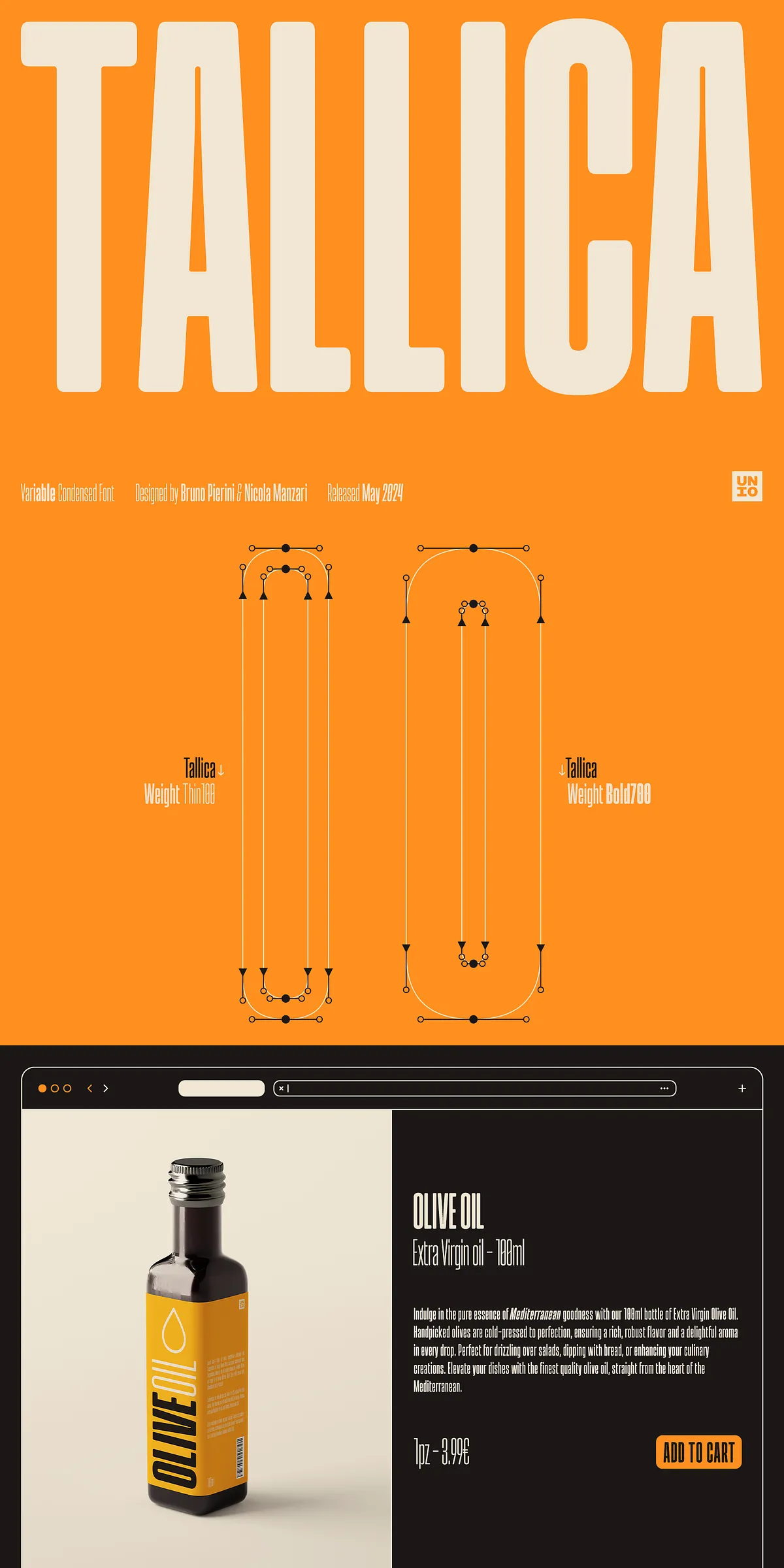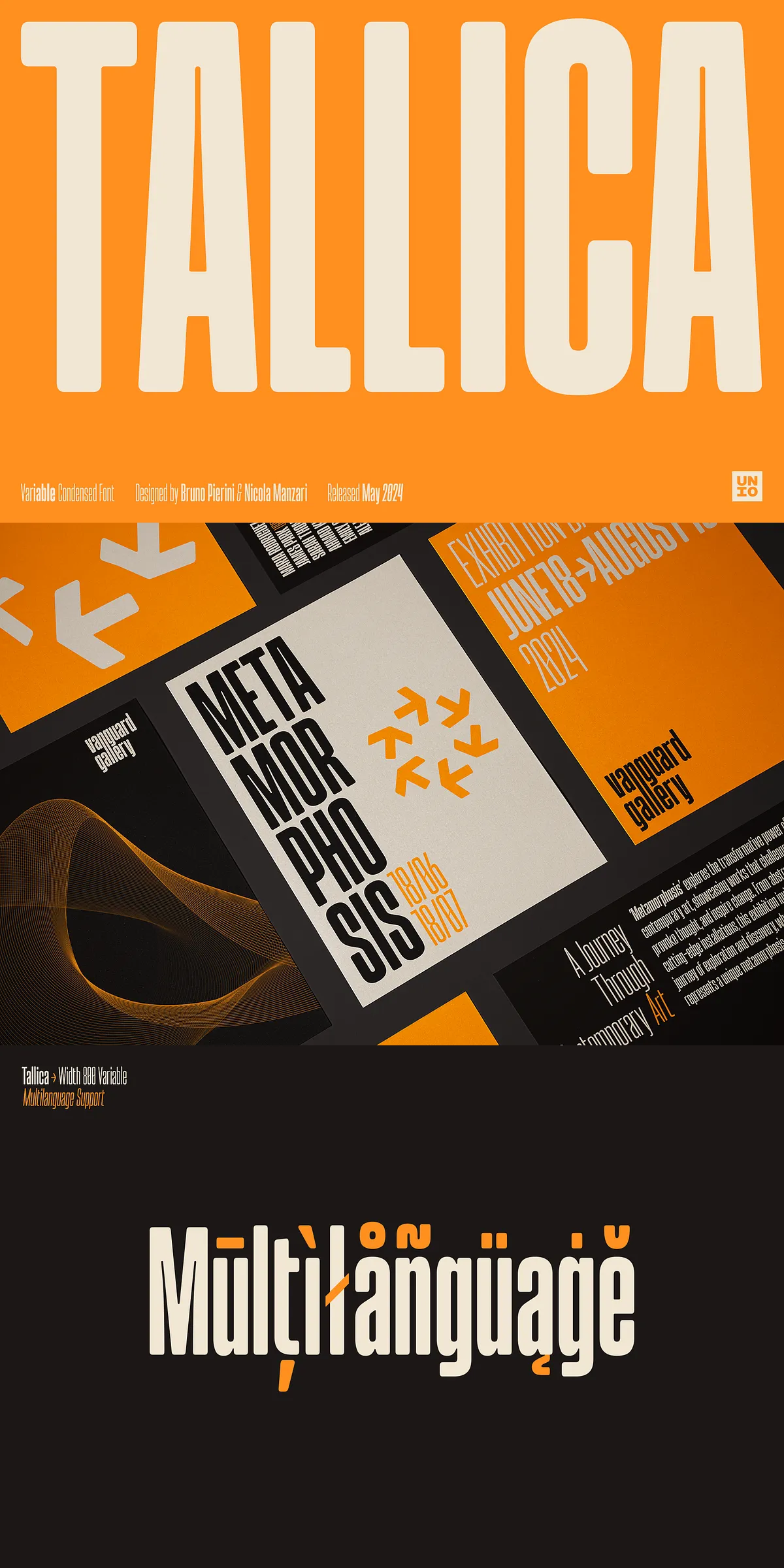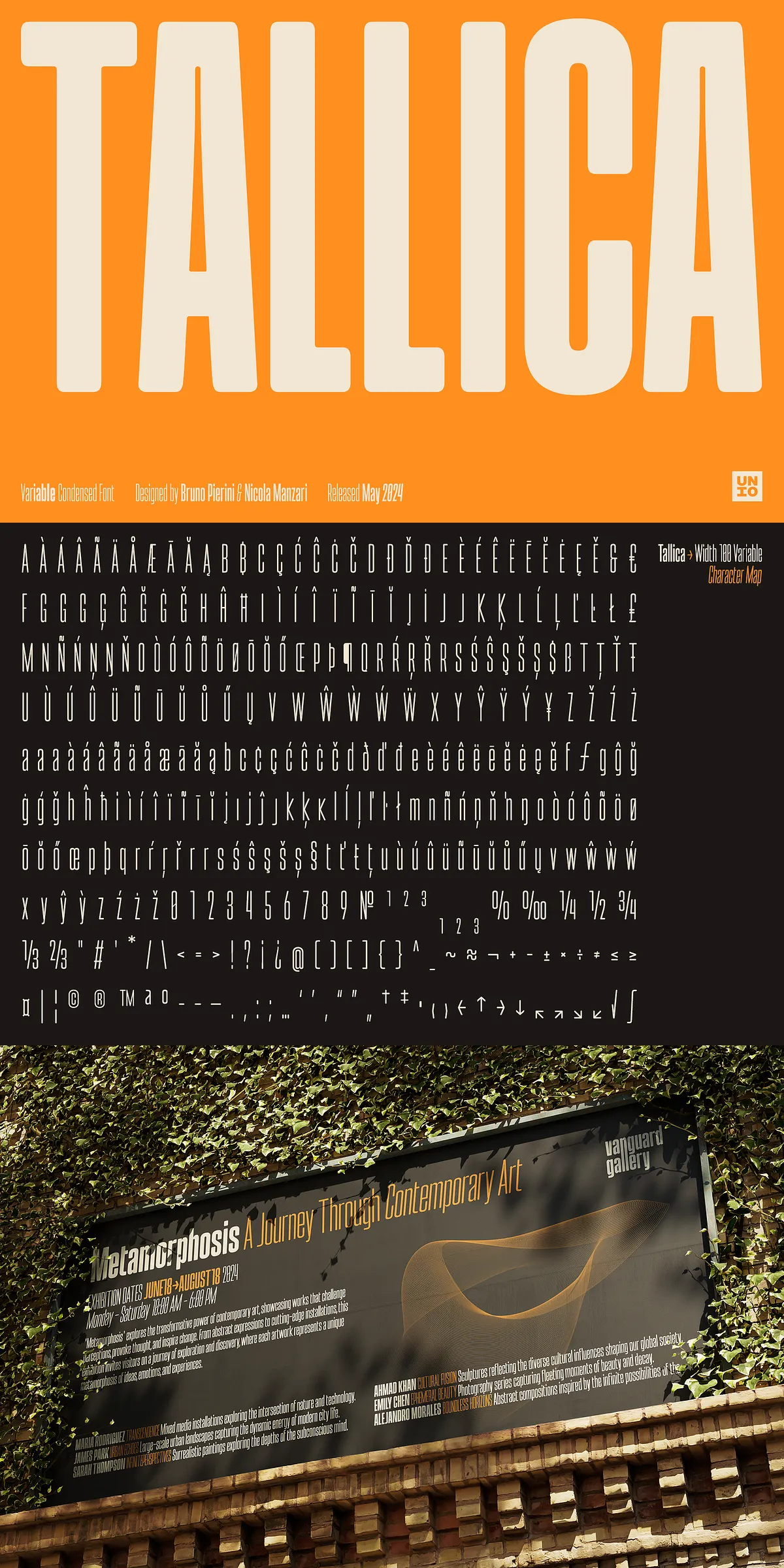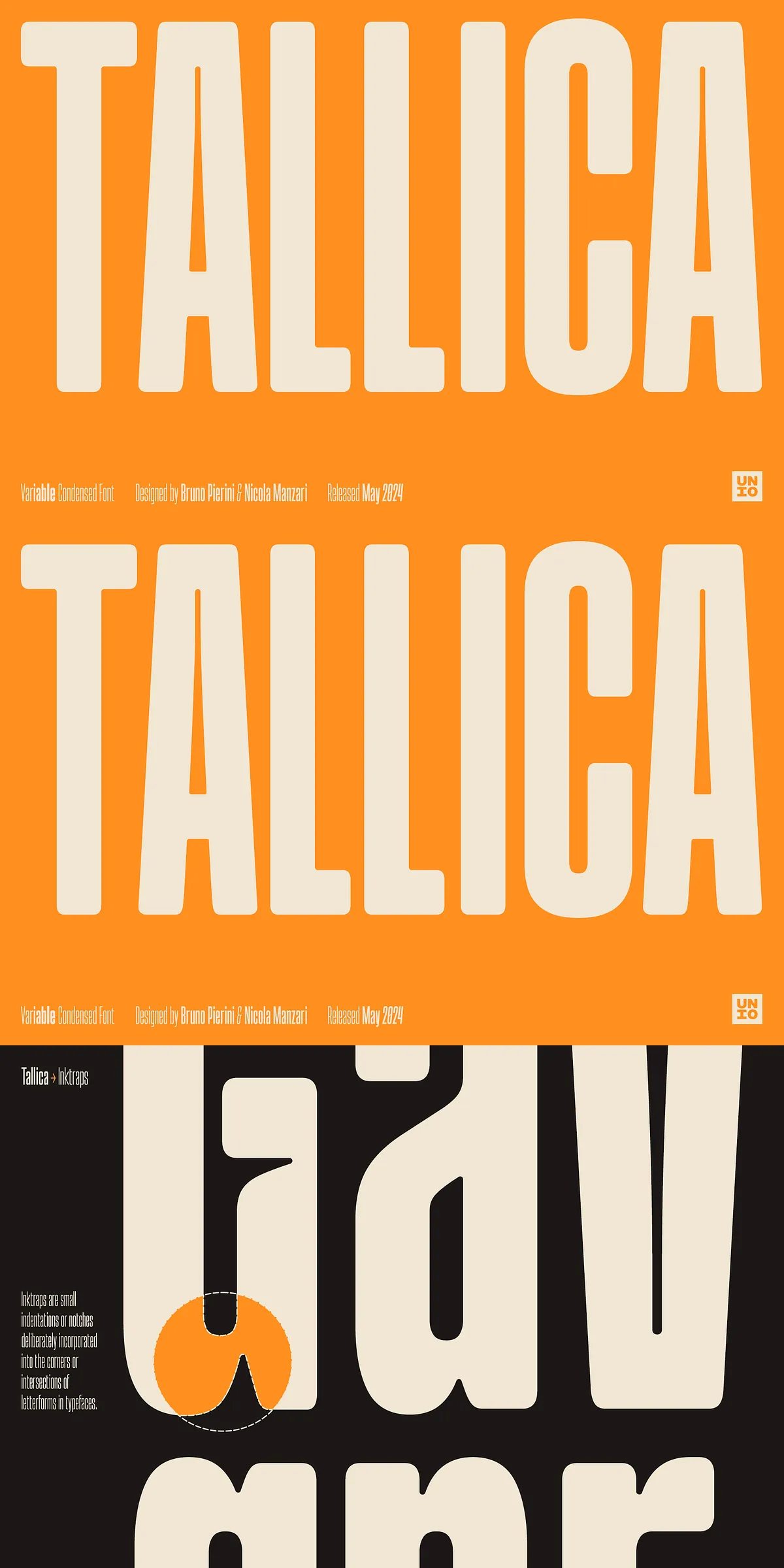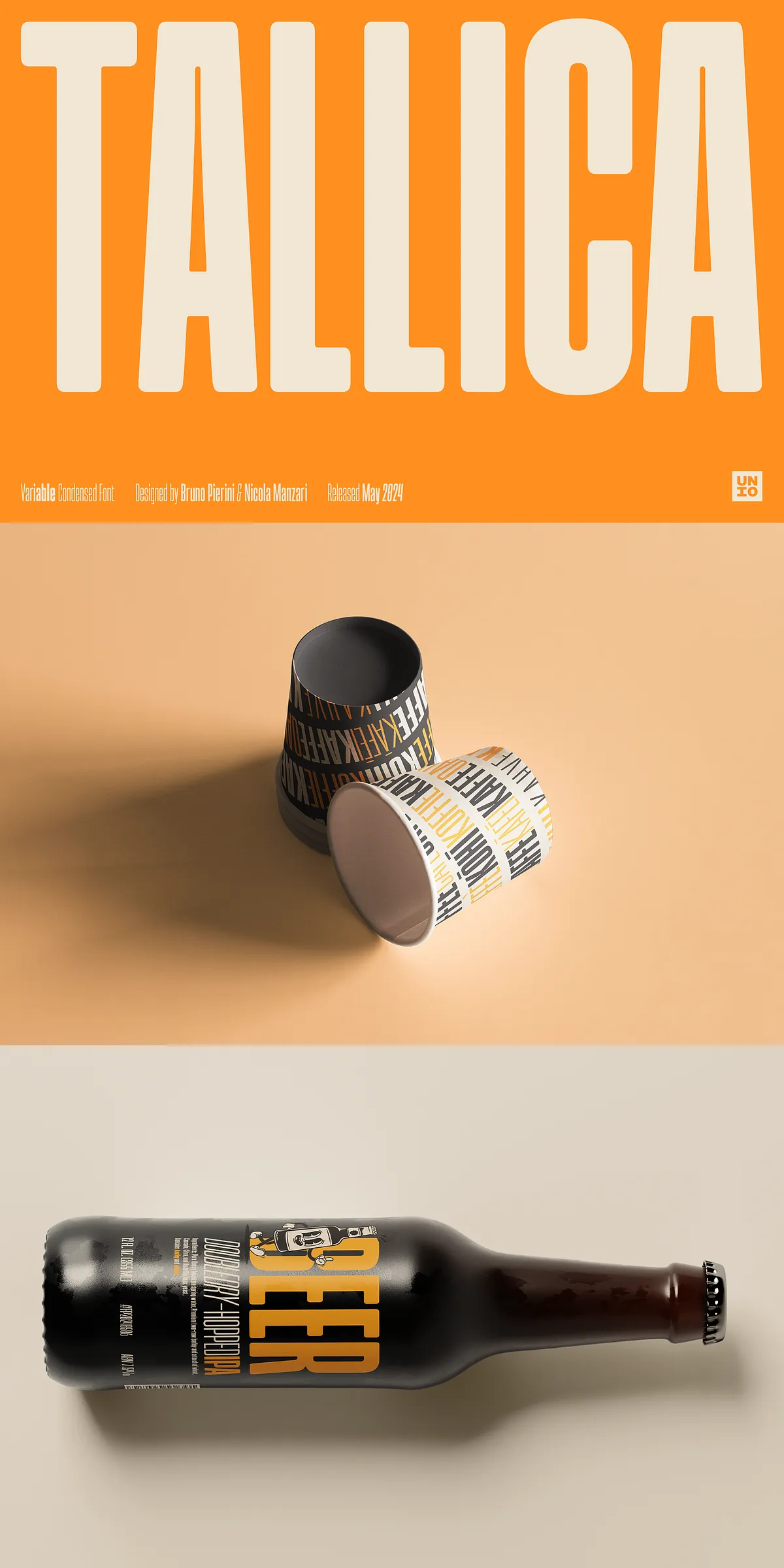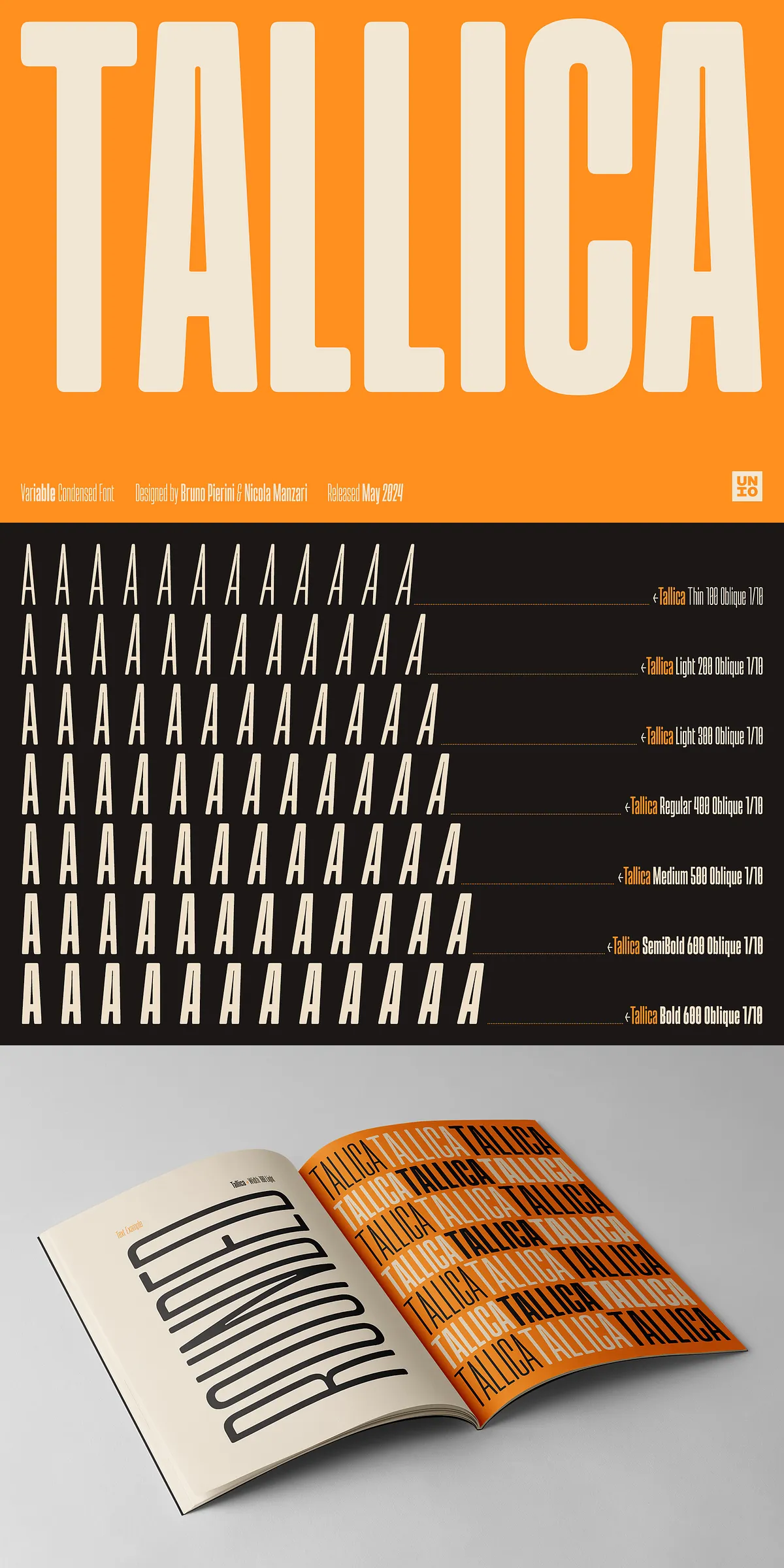
Transform your design landscape with Tallica, a daring and powerfully expressive extra-condensed grotesque typeface engineered to dominate visual space while maintaining exceptional readability. If you need a font that commands instant attention—where every character carries weight, precision, and presence—Tallica isn’t just an option. It’s the definitive choice. From high-impact headlines to tight layout constraints, Tallica redefines what’s possible in compact typography.
Designed for Impact: Ultra-Compressed, Uncompromising Presence
At its core, Tallica is built on the principle of visual intensity. The ultra-compressed letterforms are meticulously crafted to maximize space efficiency without sacrificing strength or character. Whether you’re designing a luxury product label, a festival poster, a mobile UI, or a high-end digital ad, Tallica allows you to pack a statement into a minimal footprint. This is typography with power density—a single word can become a landmark in your composition.
Unlike many condensed fonts that sacrifice legibility under pressure, Tallica refuses to make that trade. Its generous x-height ensures that even at the most extreme compression, lowercase letters remain clear and recognizable. The open counters and carefully balanced proportions preserve the soul of each character, letting you prioritize impact without losing readability.
Complete Variable Control: From Delicate Thin to Statement-Making Bold
With a full variable font family spanning a dynamic range of weights—from the delicate Thin to the unapologetically powerful Bold—Tallica gives you unmatched typographic control. Use the Thin weight for elegant accents or subtle emphasis, and transition seamlessly into Bold for headlines that demand attention. The variable nature means you can fine-tune the weight with pixel-perfect precision, creating natural transitions and layered effects in your design.
For advanced typographic expression, Tallica includes full oblique variants for every weight. This means you can introduce subtle slants and movement into your text, adding rhythm and dynamism to your layouts. Pair a bold, upright title with a slanted caption or use obliques to create visual flow in complex grids. The versatility is limitless.
Modern Precision: Engineering Legibility with Subtle Innovation
At the heart of Tallica’s design is a deep commitment to both aesthetics and function. Conventional ink traps—those small cuts in strokes that prevent ink bleeding during printing—often appear outdated or inconsistent. Tallica modernizes this classic feature with clean, smooth, rounded corners. These refined details do more than enhance print quality; they subtly reinforce the typeface’s contemporary identity.
The result? A harmonious blend of mechanical precision and soft personality. The ink traps are functional without being distracting, adding a touch of quirk and sophistication. They contribute to an overall sense of refinement that ties the entire family together, ensuring that Tallica feels cohesive whether used in a minimalist app interface or a bold editorial spread.
Where Tallica Shines: High-Stakes, Space-Limited Applications
Tallica isn’t just a font; it’s a strategic design tool. Its strengths are most pronounced in environments where every millimeter counts:
- Branding & Logos: Create compact, unforgettable brand identifiers. Tallica’s condensed nature lets you keep your brand name powerful and memorable, even in small formats like favicons or app icons.
- UI & UX Design: Optimize space in navigation menus, buttons, headers, and sidebars. Tallica reduces visual clutter while maintaining visual hierarchy and legibility in digital interfaces.
- Print & Packaging: Maximize text in limited spaces on labels, posters, tickets, and business cards. Tallica turns a cramped layout into a design triumph.
- Advertising & Motion Graphics: Deliver punchy slogans and headlines in video ads, social media banners, and animated intros. The bold presence grabs attention in a split second.
Make Your Message Unmissable with Tallica
Stop fighting for space. Start owning it. Tallica delivers the rare combination of extreme compression, superior legibility, and modern flair—making it indispensable for designers who demand more from their typography. This isn’t just a typeface. It’s a force of design.
Choose Tallica to ensure your words don’t just appear—they impact. Whether you’re building a premium brand, launching a digital campaign, or crafting a statement in print, Tallica gives you the tools to leave a lasting impression. Design with power. Design with precision. Design with Tallica.